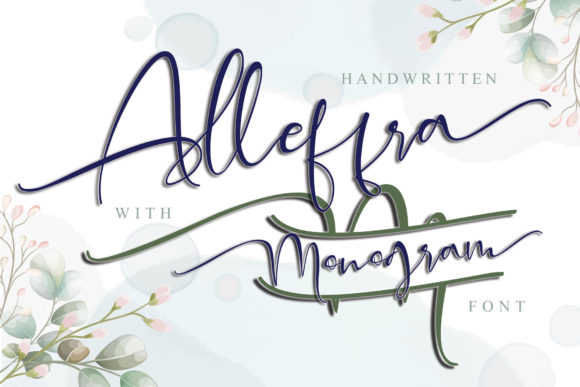
Prepare to be enthralled by Alleffra, a captivating script font that oozes modern elegance and charm. Its exquisite handwritten style brings an authentic touch to any design project, transforming your ideas into remarkable creations. Picture this: wedding invitations adorned with Alleffra's graceful strokes, enchanting stationary art that tells a story, and captivating social media posts that demand attention. Let Alleffra guide you on a journey of creativity, where every letter dances across the page with a touch of finesse.
Unleash your imagination and explore the boundless possibilities with Alleffra. Create visually stunning logos that leave a lasting impression, craft brochures and flyers that entice readers, and design product packaging that exudes sophistication. Alleffra's versatility extends to web design, where it lends a touch of sophistication to user interfaces and elevates the overall user experience. Its smooth lines and gorgeous glyphs add a layer of visual intrigue, capturing the attention of visitors and guiding them through your digital realm.
For those seeking a font that embodies grace and charm, Alleffra is the perfect choice. Its varying baseline and stunning alternates add a touch of playfulness and dynamism to your designs, ensuring they stand out from the crowd. Alleffra is a font that speaks to the heart, evoking emotions and creating a lasting connection with your audience. Whether you're a seasoned designer or just starting, Alleffra is the key to unlocking your creative potential and crafting designs that resonate with your audience.
But Alleffra is more than just a font; it's an experience. Immerse yourself in its beauty and let your creativity soar. With Alleffra, every project becomes a masterpiece, every design a work of art. So, embrace the allure of Alleffra and embark on a journey of limitless creativity.